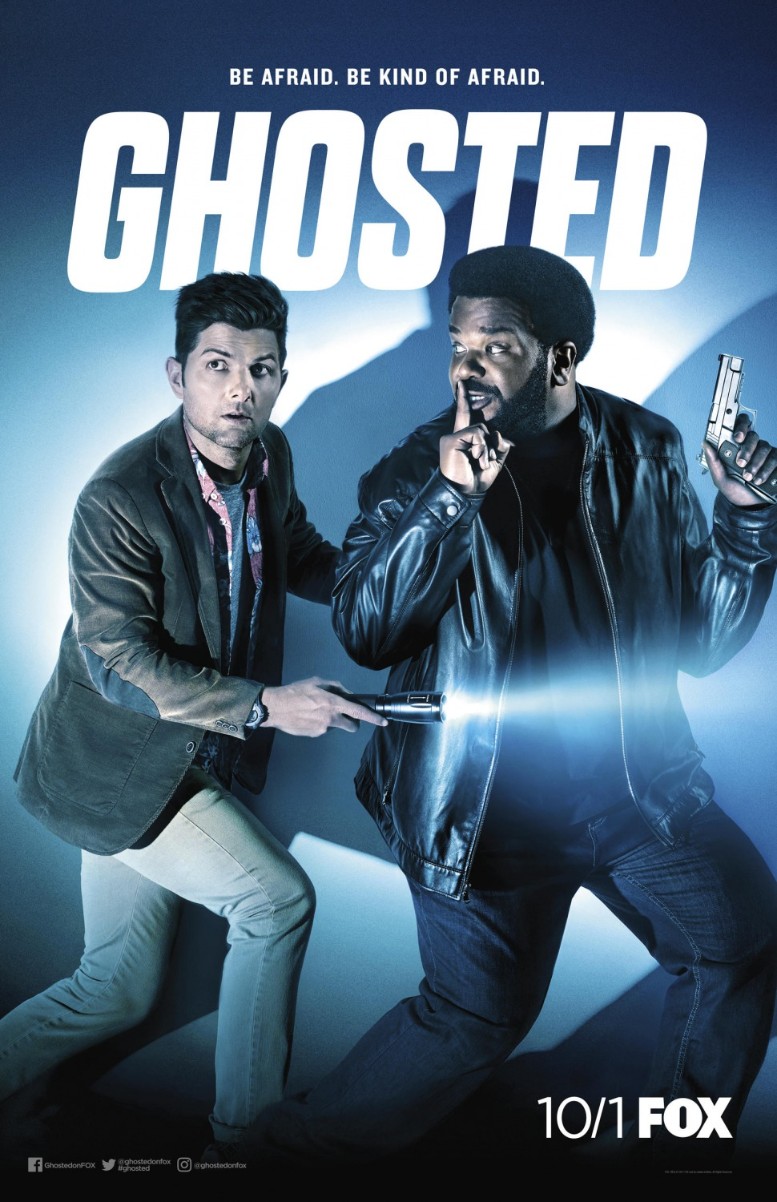
Ghosted (TV series) Font
ComedyGhosted is a sitcom that ran on Fox from 2017 to 2018. It follows the comedic adventures of two unlikely paranormal investigators, Leroy Wright and Max Allison, who work at a secret government agency that deals with supernatural threats.
The title of the TV series ''Ghosted'' is presented in Dharma Gothic Expanded ExtraBold Italic font, which is an antiqued sans serif inspired by 1800s-style wood type. Ryoichi Tsunekawa designed Dharma Gothic font family which includes 42 styles.